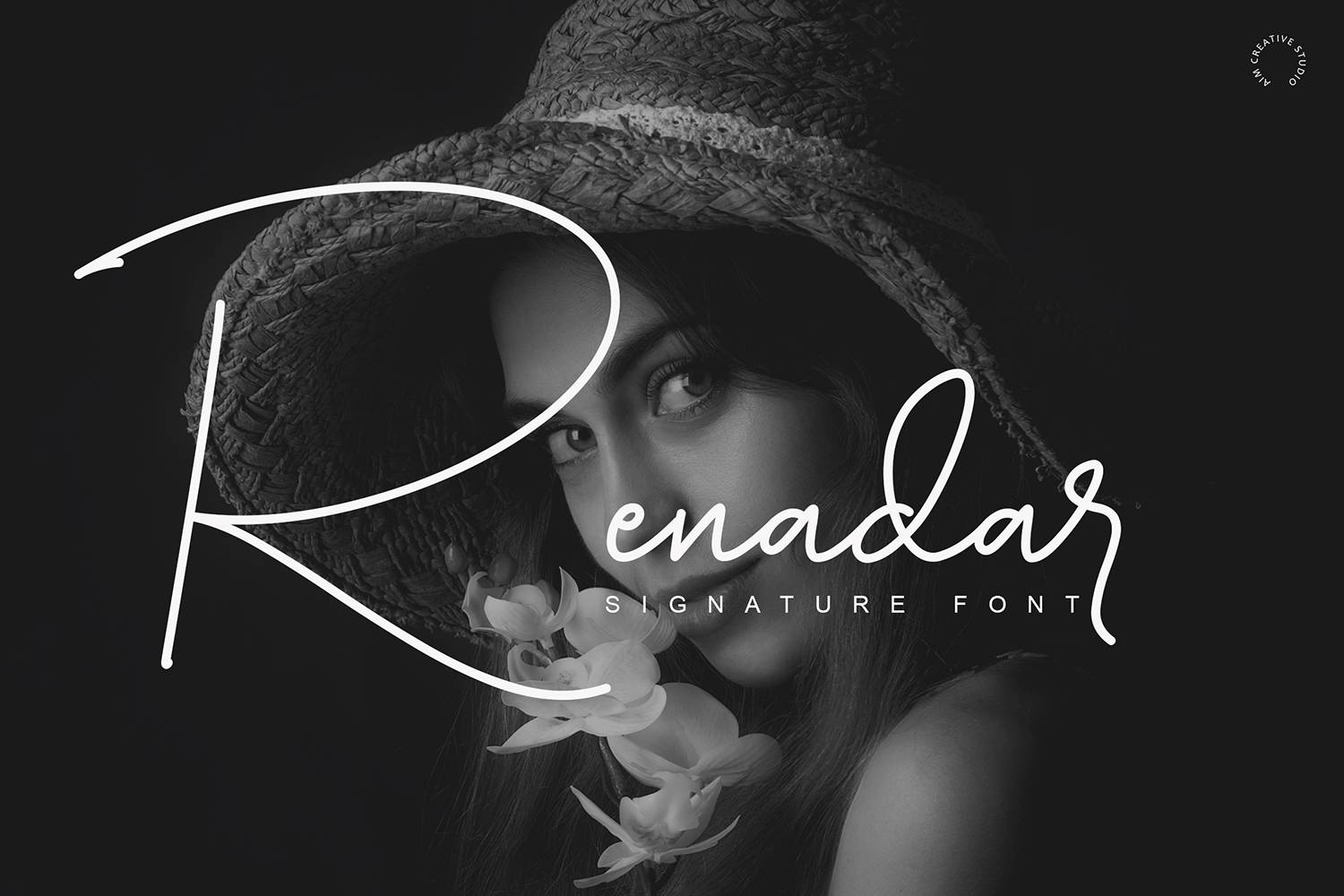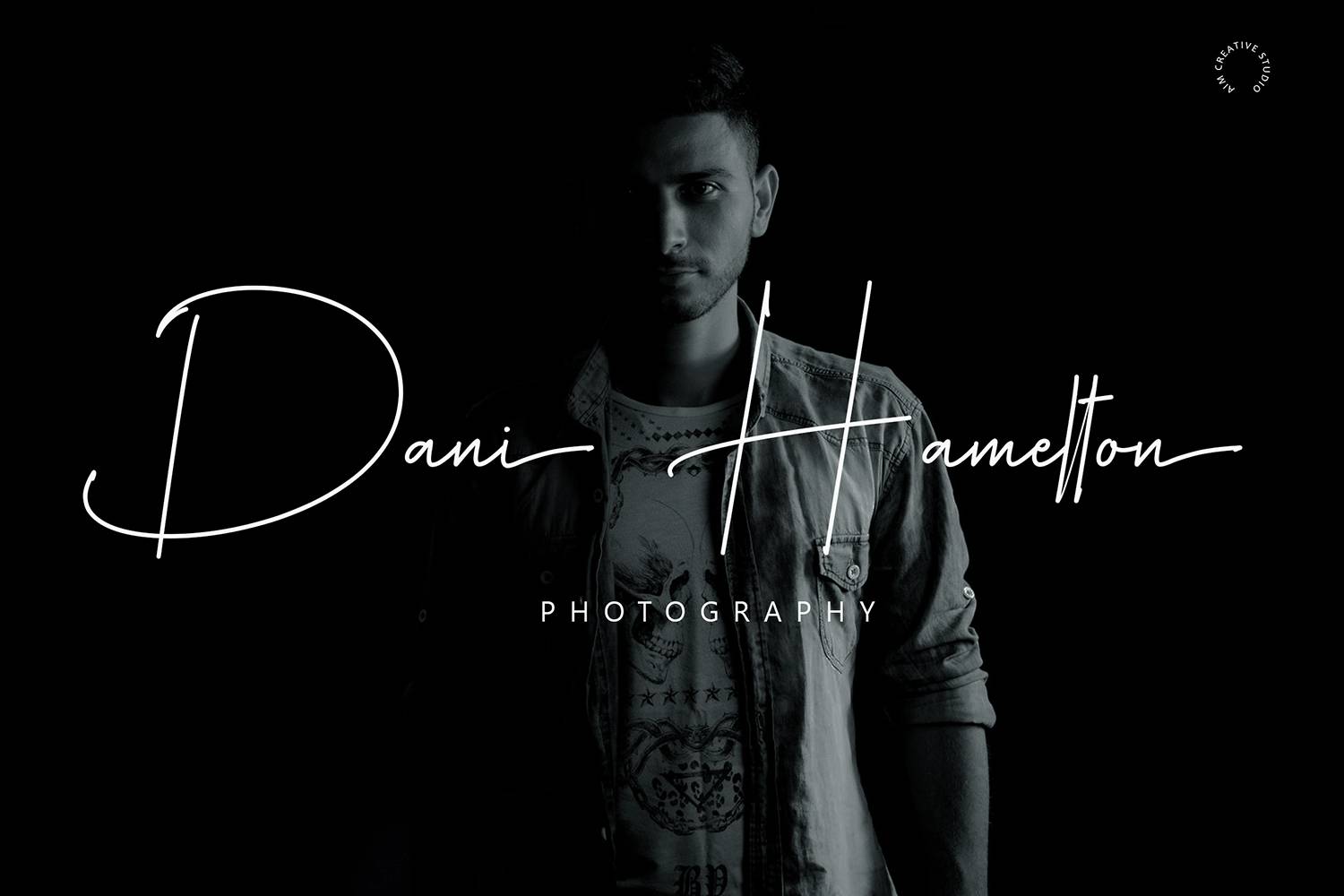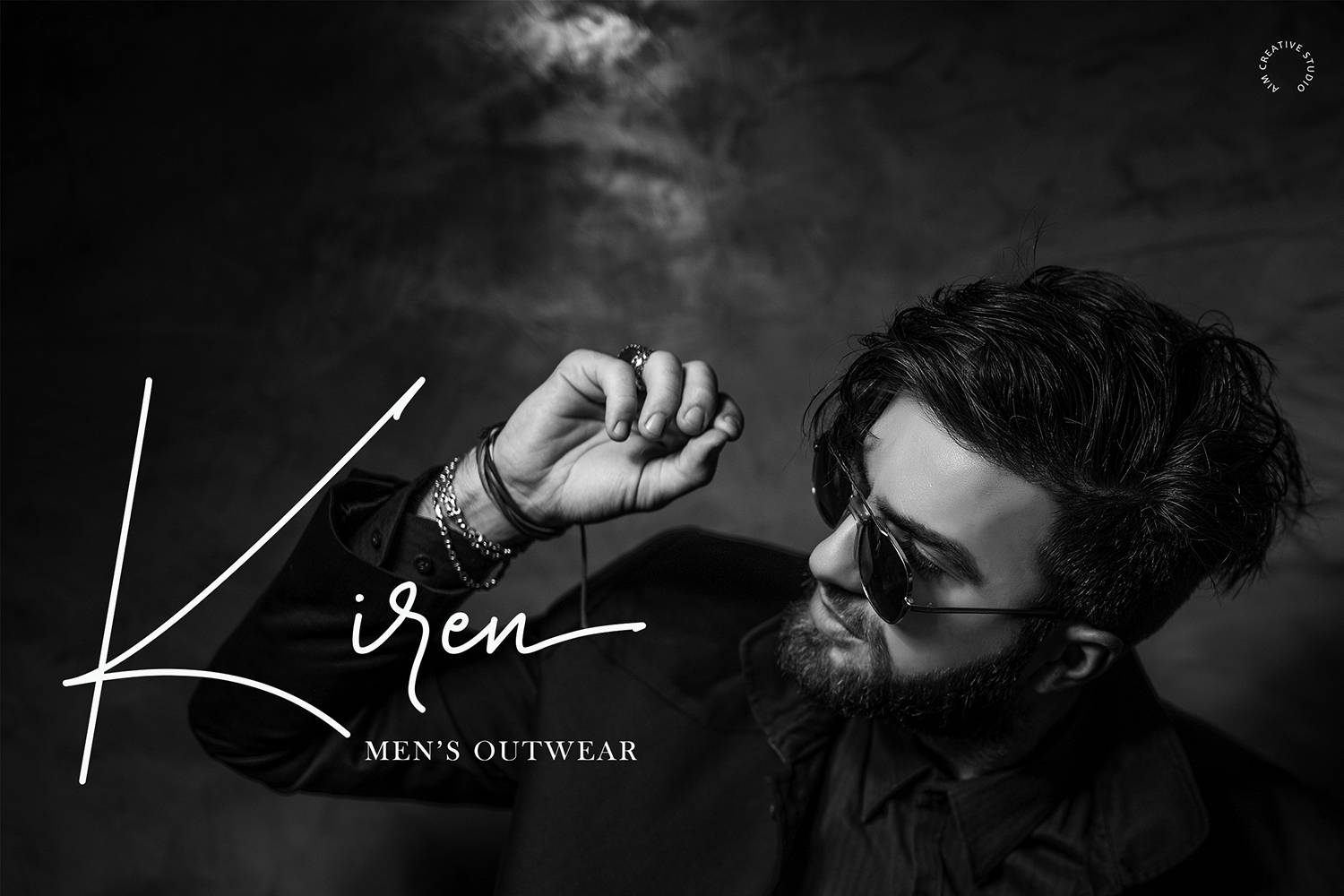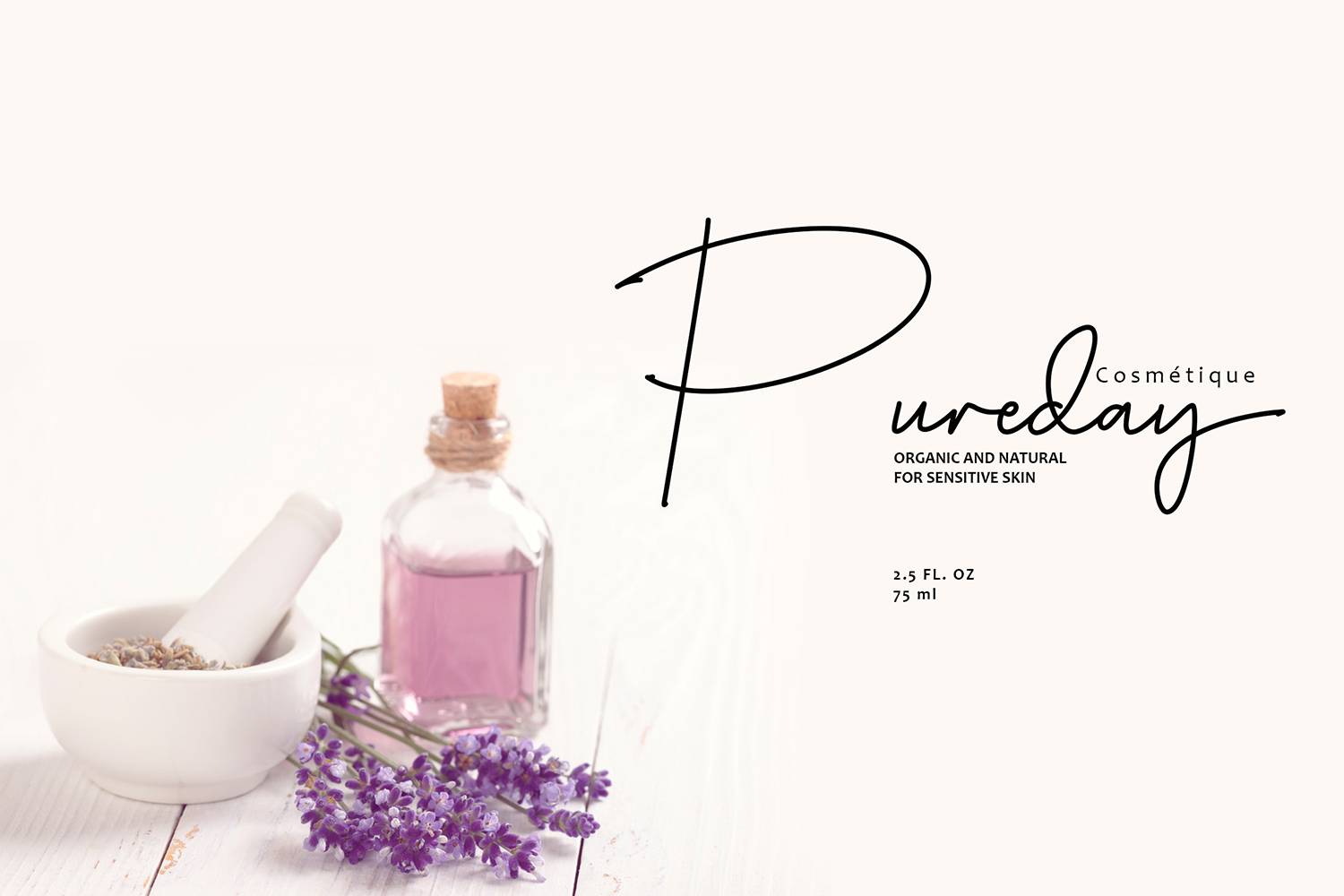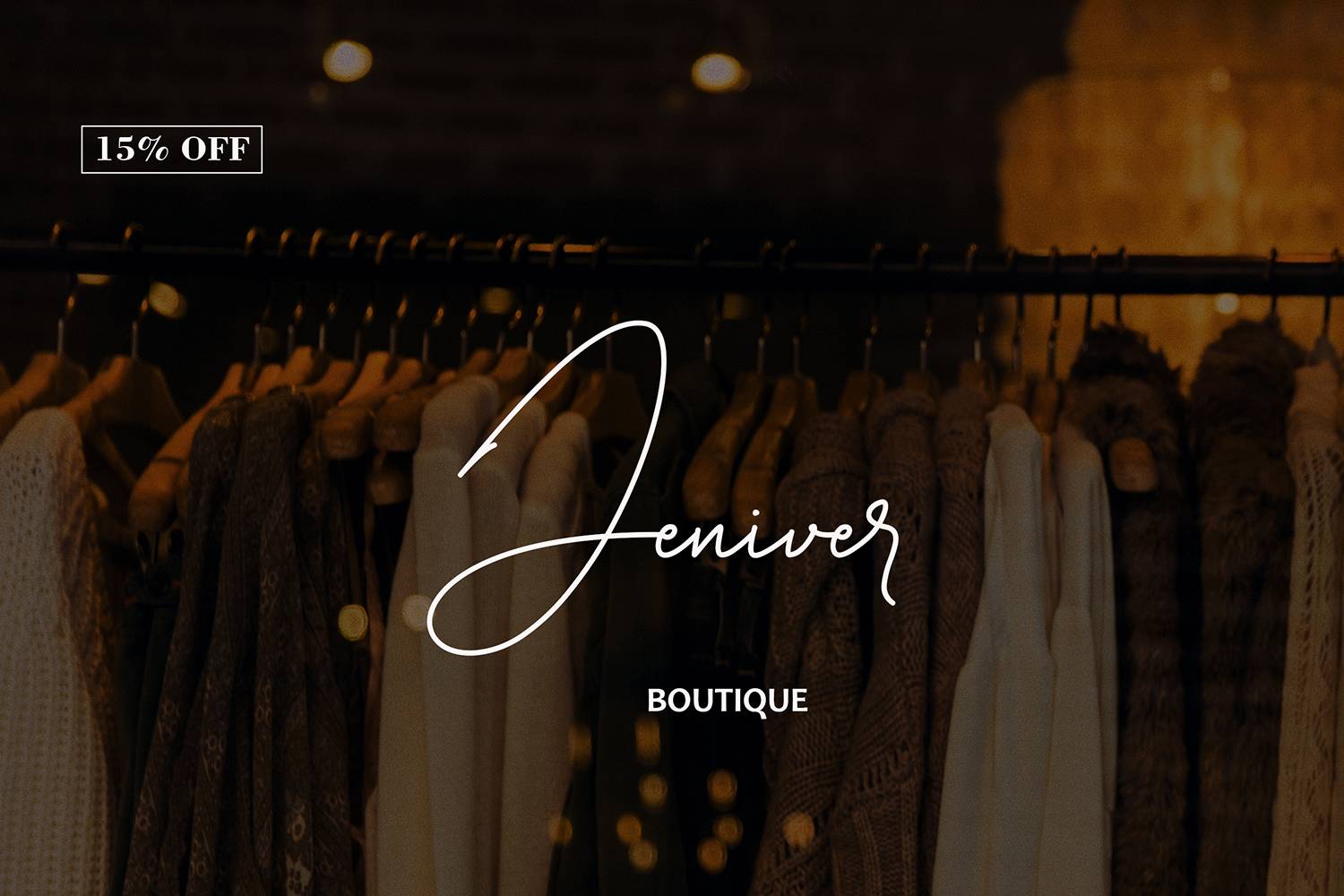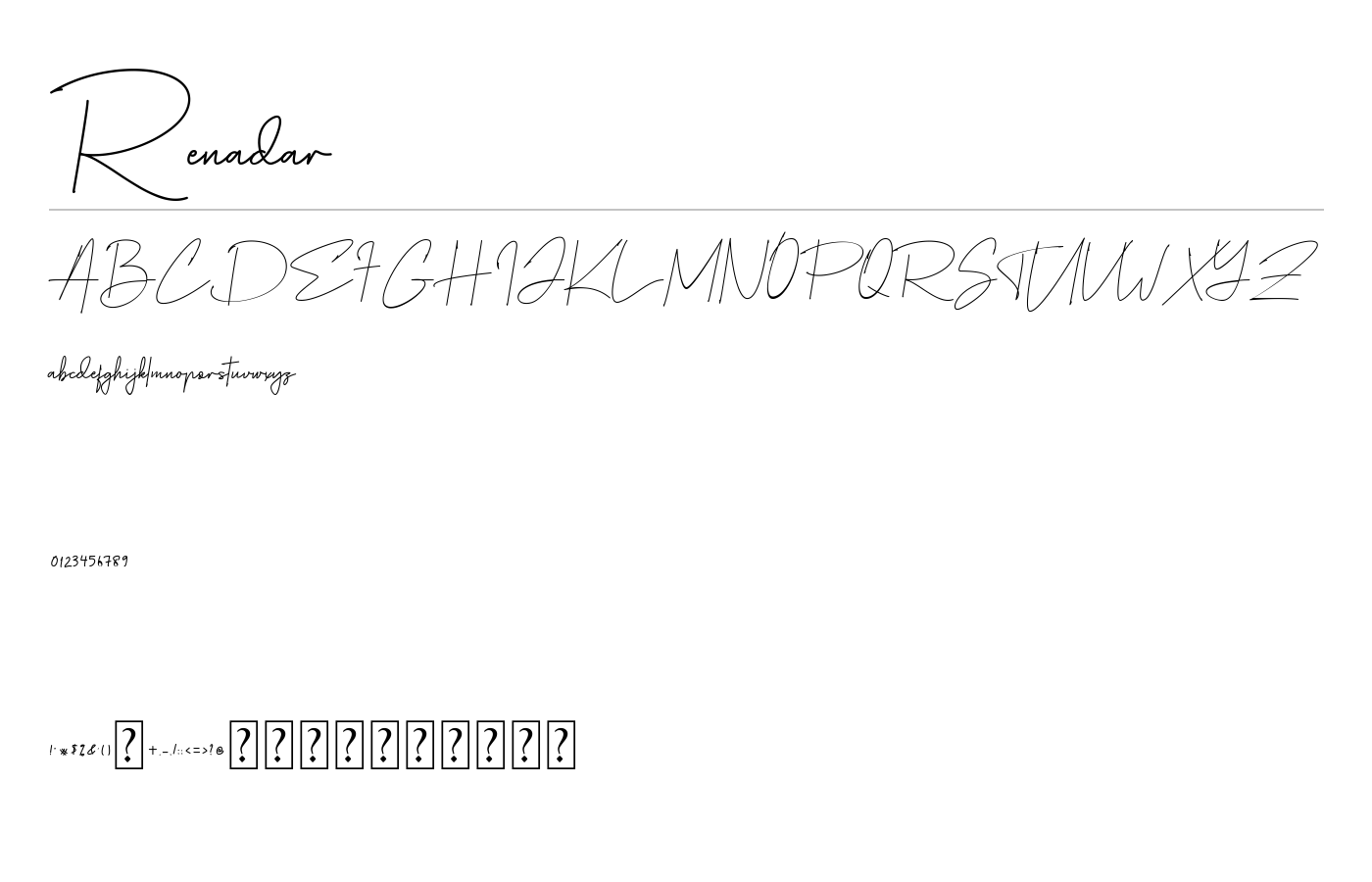
Renadar is a delicate, light script font that features a casual, handwritten style with elegant, flowing letterforms. Its slender strokes and airy spacing give it a modern, artistic feel, making it ideal for personal branding, invitations, and creative projects that seek a refined yet approachable look. This font works best in headlines or decorative text where its subtle charm can shine.
Renadar Font
About Renadar Font